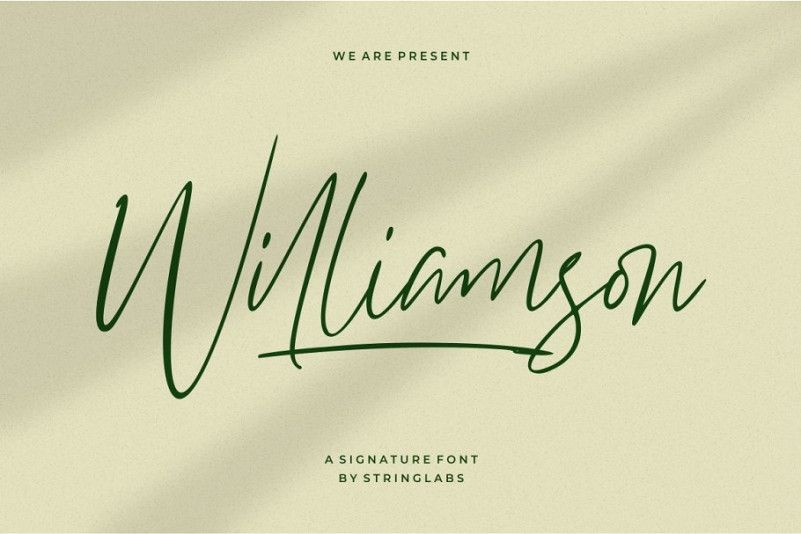
Williamson Font
Williamson Font can be used for any variety of purposes, a modern handwritten script font that is perfect for any professional design & craft projects, be it logo designs, home decor, party invites, t-shirts or quotes!